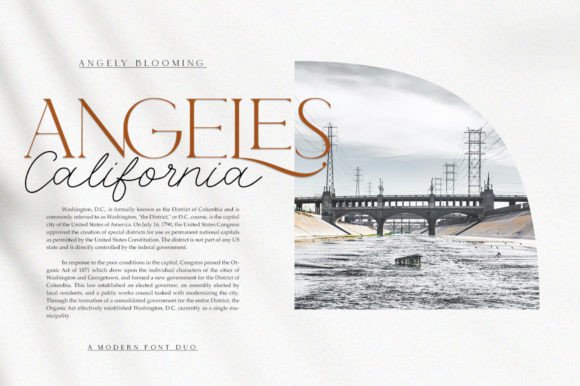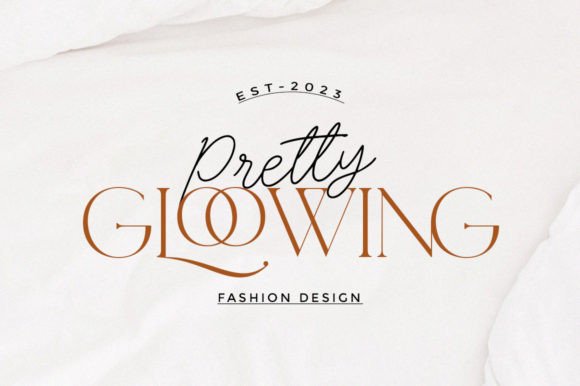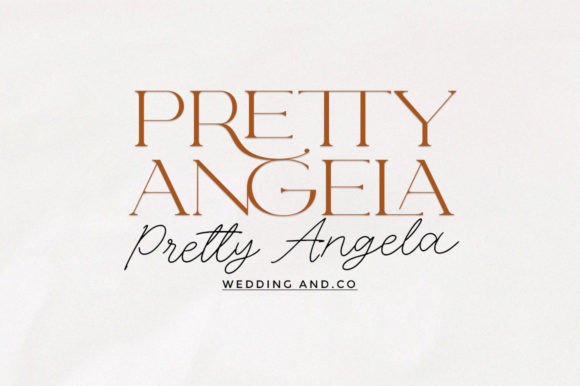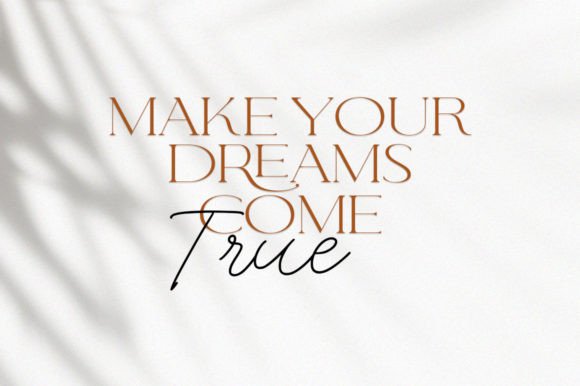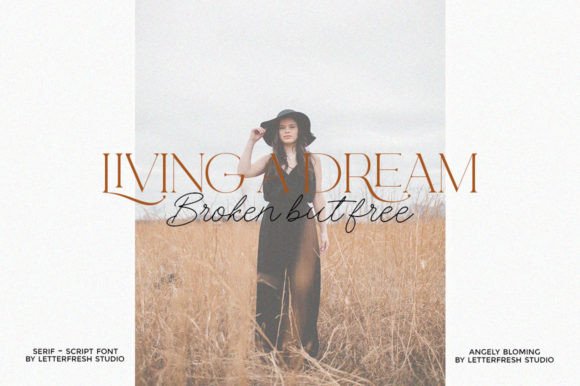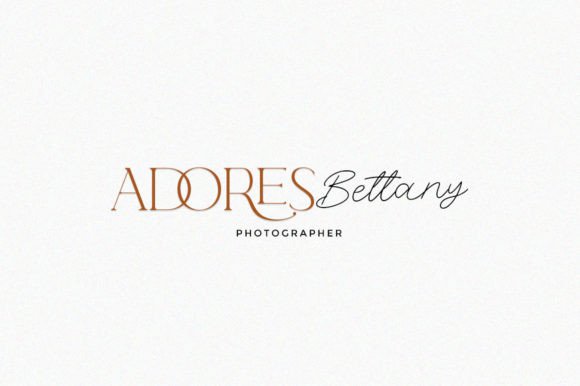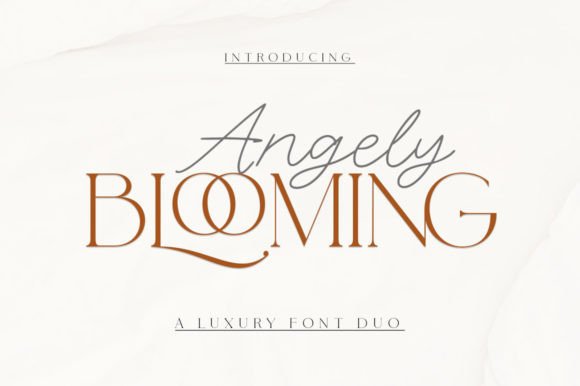
Introducing Angely Blooming Font: A Magical Design Duo for Creative Projects
Are you a designer, crafter, or DIY enthusiast looking for a unique and versatile font to elevate your creative projects? Look no further than the Angely Blooming Font, a professional resource that offers a powerful and magical design duo. This font comes in four versions, including Script and Serif, making it perfect for a wide range of applications.
What Makes Angely Blooming Font So Special?
The Angely Blooming Font is a standout resource for several reasons. Firstly, it features a beautiful and intricate design that adds a touch of magic to any project. The font comes in four versions, including two script fonts and two serif fonts, allowing you to choose the perfect style to suit your needs. Whether you’re creating blog headers, posters, wedding elements, or business cards, this font duo has got you covered.
One of the best things about the Angely Blooming Font is its versatility. You can use it for almost anything, including:
- Blog headers and titles
- Wedding elements, such as invitations and decorations
- T-shirts and clothing
- Book covers and book interiors
- Business cards and branding materials
- Quotes and social media graphics
- Customize your text with unique and creative flourishes
Why Designers and Crafters Love Angely Blooming Font
Designers and crafters love the Angely Blooming Font for several reasons:
- Unique and eye-catching design: The font’s magical design duo adds a touch of elegance and sophistication to any project.
- Versatility: The font can be used for a wide range of creative projects, from digital designs to print materials.
- Time-saving: With the Angely Blooming Font, you can create professional-looking designs quickly and easily.
Tips for Using Angely Blooming Font
Here are a few tips for getting the most out of the Angely Blooming Font:
- Experiment with different versions: Try out the different script and serif versions to see which one works best for your project.
- Mix and match: Combine the Angely Blooming Font with other fonts and design elements to create a unique look.
- Pay attention to details: Take the time to customize your text with the font’s glyphs and ligatures to add an extra touch of elegance.
The Angely Blooming Font is a powerful and versatile resource that offers a magical design duo for creative projects. With its four versions, PUA encoding, and endless creative possibilities, this font is perfect for designers, crafters, and DIY enthusiasts. Whether you’re creating digital designs or print materials, the Angely Blooming Font is sure to add a touch of elegance and sophistication to your work.